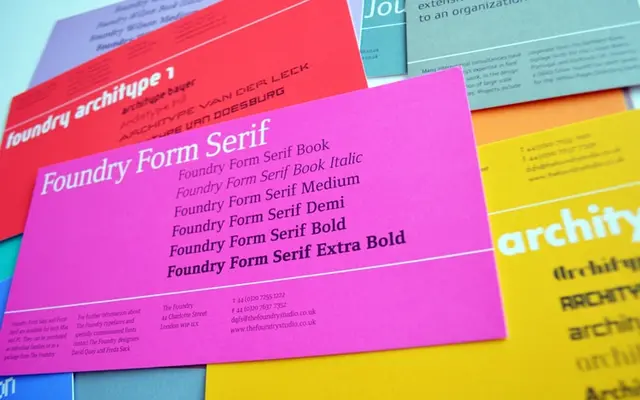
Foundry Form Serif
The Foundry Types · David Quay
A modern Egyptian slab with wedge serifs and a pronounced horizontal axis, drawn to work alongside Foundry Form Sans at matching cap and x-height proportions.
The typeface's defining characteristic is a deliberately shallow connecting junction across letters such as 'a', 'h', 'm' and 'n', creating a strong lateral rhythm across the line. Slightly condensed proportions keep it economical, and the open counters with near ninety-degree terminal angles aid legibility at small sizes and on screen. Seven styles run from Book to Extra Bold with cursive italics through the lighter weights, making it suitable for both editorial text and headline work.
Described explicitly as a modern Egyptian style typeface with wedge-shaped serifs and strong horizontal axis, placing it firmly in the slab/Egyptian subcategory with notable stroke contrast.